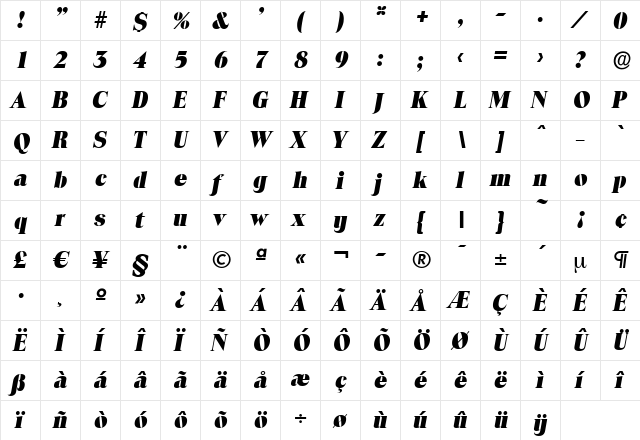
RalphBecker-Heavy Italic
Design Context for RalphBecker-Heavy Typeface
RalphBecker-Heavy is a composed and adaptable typeface that performs quietly and consistently across a wide range of design contexts. The dynamic lean of this cut emphasises speed and emphasis in any layout.
Pro Tip: Try RalphBecker-Heavy for annotation and caption copy alongside an upright companion — the contrast in angle creates a dynamic but ordered typographic system.